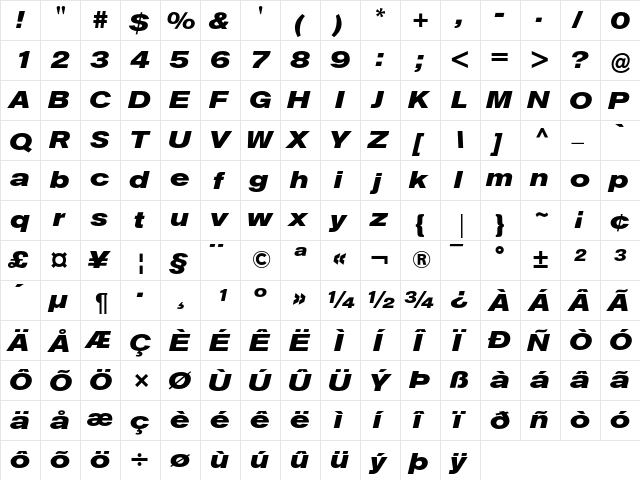
Berthold Akzidenz Grotesk BE Bold Extended Italic
Design Context for Berthold Akzidenz Grotesk BE Typeface
Berthold Akzidenz Grotesk BE has the quiet confidence of well-executed sans-serif typography: versatile, unobtrusive, and dependable at any size. Its italic angle brings a sense of urgency and motion to the letterforms. Its bold stroke weight gives it real presence on the page.
A strong choice for UI design, app interfaces, bold signage, and corporate brand systems.
Font Pairing: Use Berthold Akzidenz Grotesk BE for headlines alongside a lighter-weight sans or serif for body copy to establish clear visual hierarchy.
Pro Tip: Pair Berthold Akzidenz Grotesk BE with a display or serif font for headlines — its neutral character makes it an excellent supporting player in complex typographic systems.